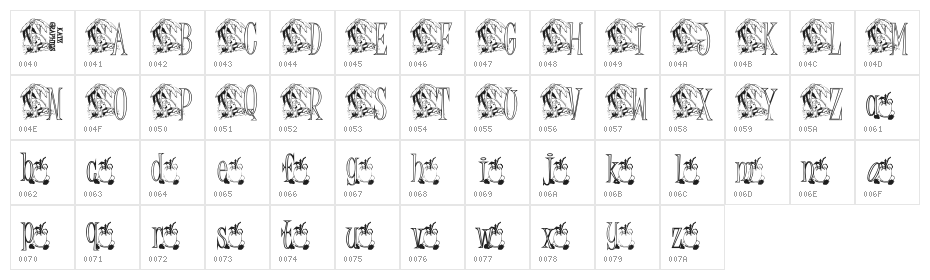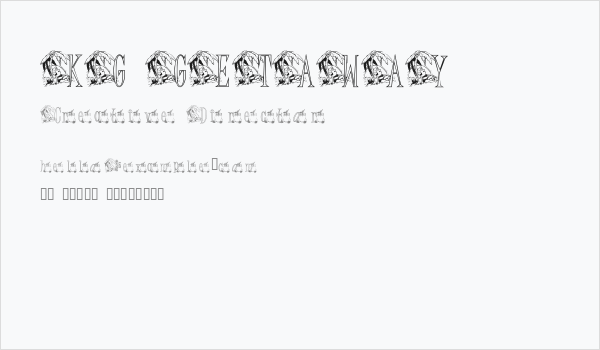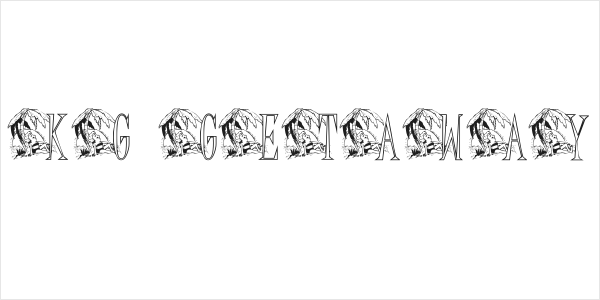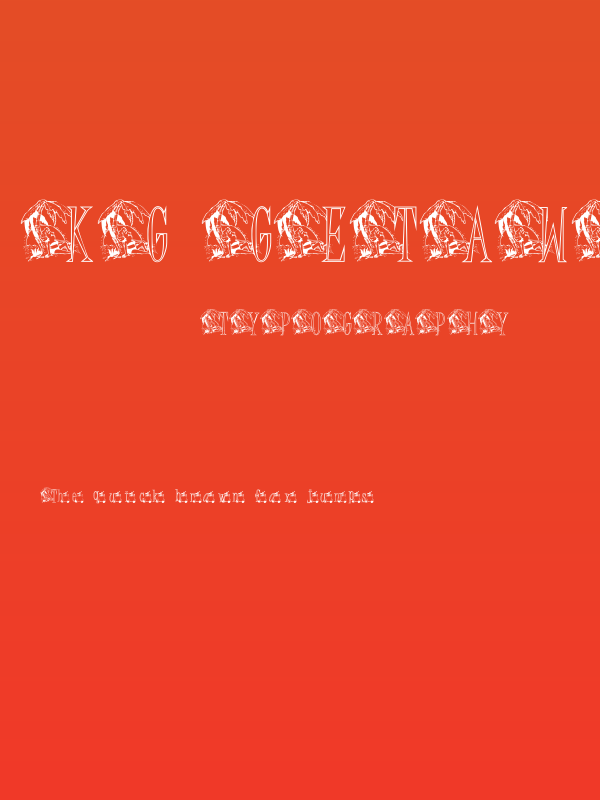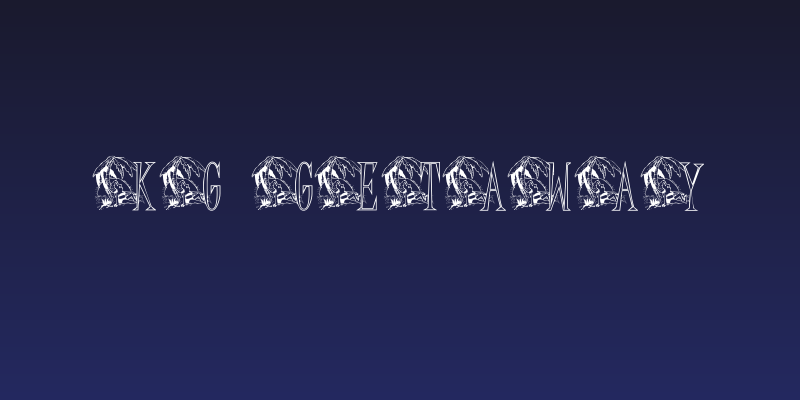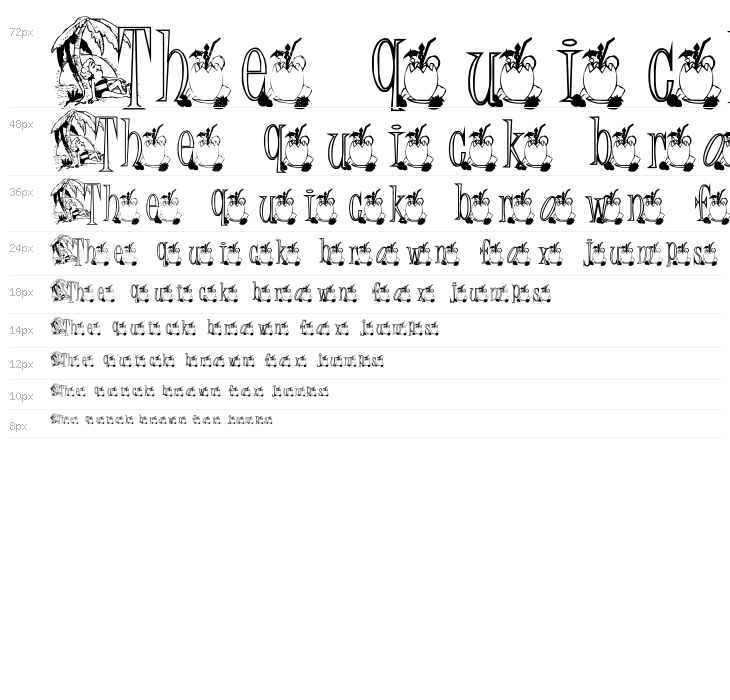
KG GETAWAY Font
KG GETAWAY Description
This font features an intricate and decorative style, incorporating playful and whimsical elements into each character. The uppercase and lowercase letters are adorned with floral and vine-like embellishments, creating a unique and artistic appearance. The characters are highly stylized, with a focus on ornamental design rather than readability. This font is ideal for creative projects where a decorative and artistic touch is desired. The special characters and numbers are represented by bold, rectangular frames, adding a modern contrast to the otherwise vintage and ornate letterforms.
| Use Case | Artistic projects, decorative headings, and creative designs. |
| Proposed Projects | Ideal for invitations, greeting cards, artistic posters, and decorative branding projects. |